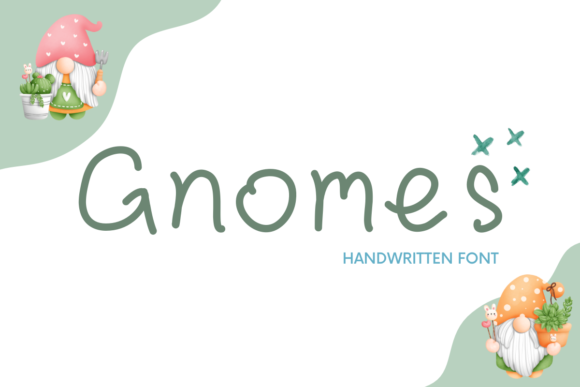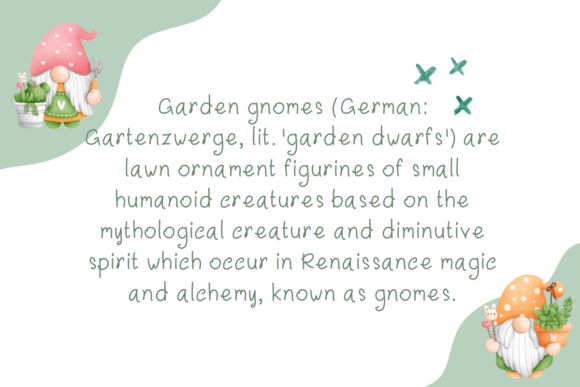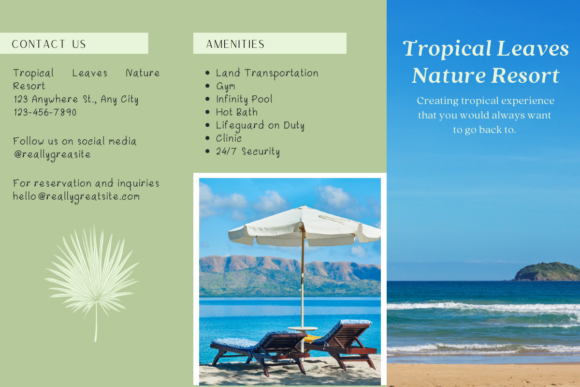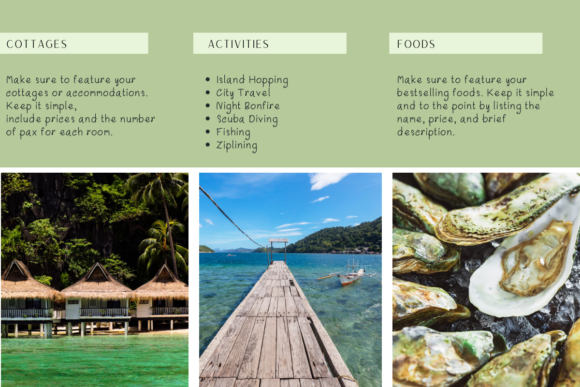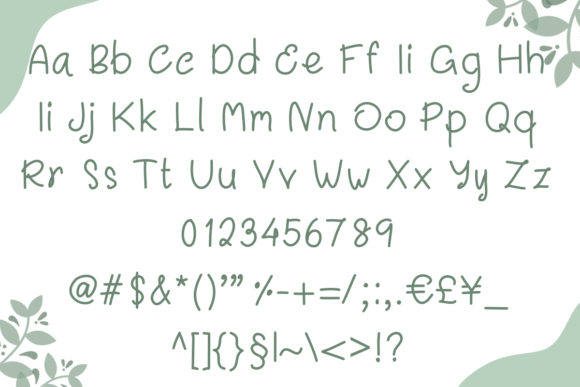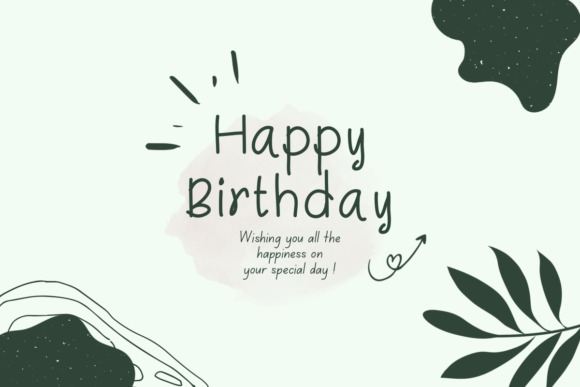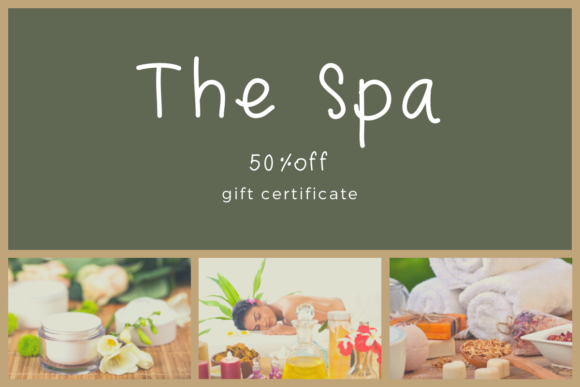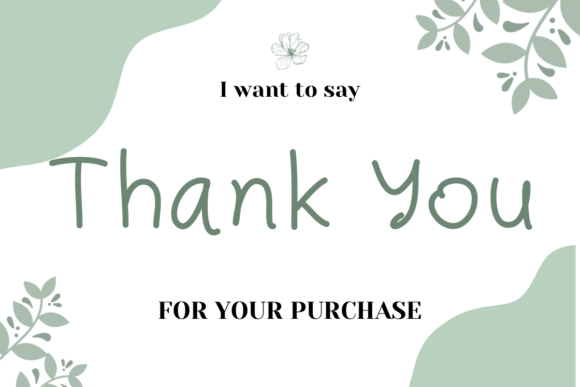
Gnomes Font
About Gnomes Font
Gnomes is a handwritten font that embodies sweetness and friendliness. Its natural and unique style makes it a perfect choice for a variety of applications. The charm of Gnomes lies in its ability to add a personal and intimate feel to any design. Its sweet and friendly style can bring a sense of warmth and creativity to your designs, making them more engaging and appealing to the audience.
In conclusion, Gnomes is more than just a font. It’s a design tool that can add a touch of sweetness and friendliness to your designs. Its unique style and versatility make it a valuable asset for any designer. So, why wait? Incorporate Gnomes into your design today and witness the transformation. Experience the difference that a truly sweet and friendly font can make. Experience Gnomes.
With Gnomes, you’re not just choosing a font. You’re choosing a font that will make your design stand out, a font that will add character to your text, and a font that will leave a lasting impression on your audience. Choose Gnomes, and let your design speak for itself.
So, if you’re looking for a font that’s sweet, friendly, and has aesthetic value, look no further than Gnomes. It’s the perfect font for any design project, and it’s sure to make your design stand out. Try Gnomes today, and see the difference it can make in your design. The only limit is your imagination!